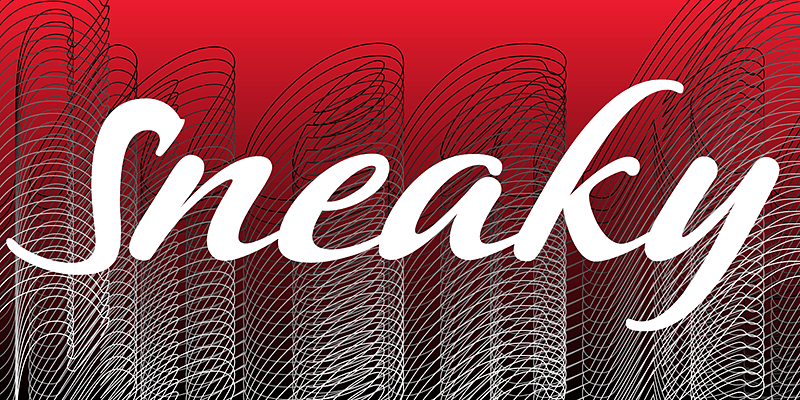
P22 Sneaky Pro
P22 Sneaky is a connecting-script by lettering Artis Michael Clark which has a flow and casual elegance. Sneaky Pro features over 500 glyphs with alternates and a Central European character set.